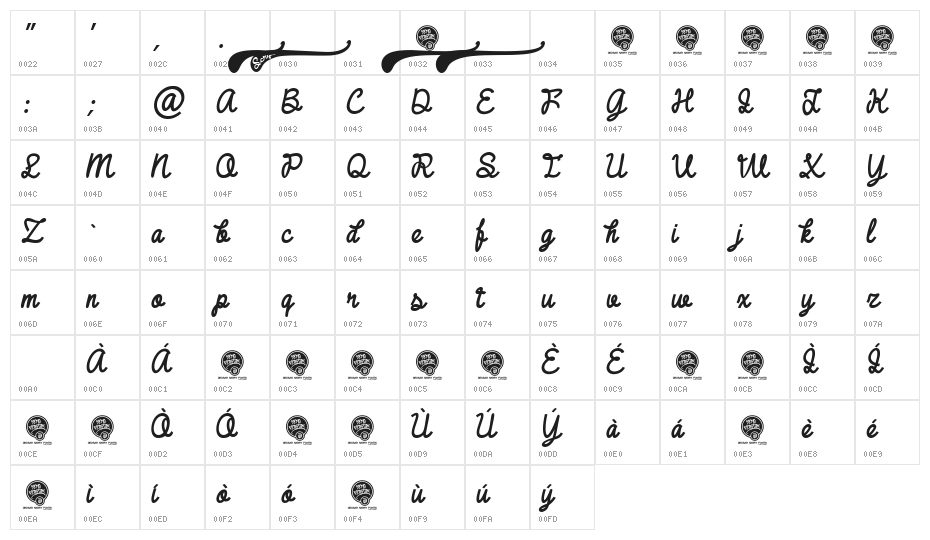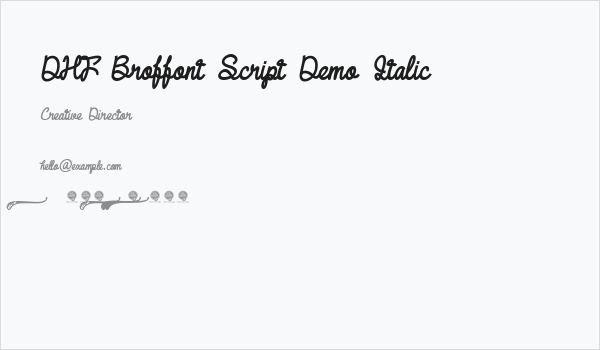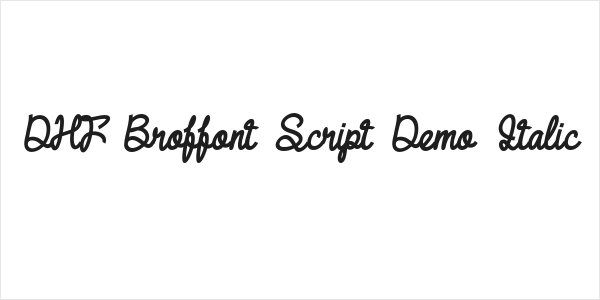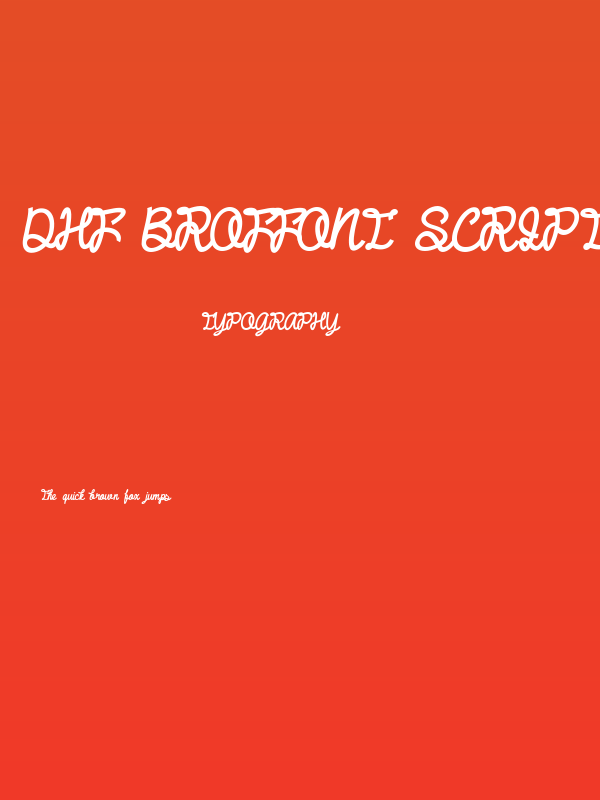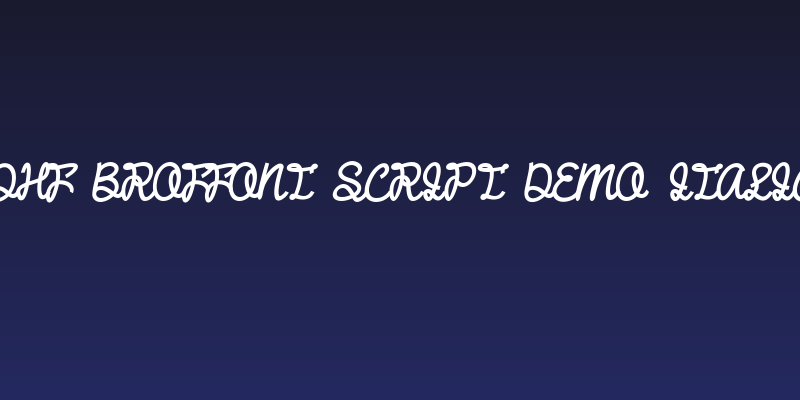
DHF Broffont Script Demo Italic Font
DHF Broffont Script Demo Italic Description
This script font features a flowing, cursive style with smooth, connected strokes that give it a handwritten appearance. The uppercase letters are bold and expressive, while the lowercase letters maintain a consistent flow, enhancing readability. The font's italic nature adds a dynamic and elegant touch, making it suitable for creative and artistic projects. The characters are well-spaced, ensuring clarity, and the overall design exudes a sense of sophistication and charm.
| Overall Style | Elegant and Artistic |